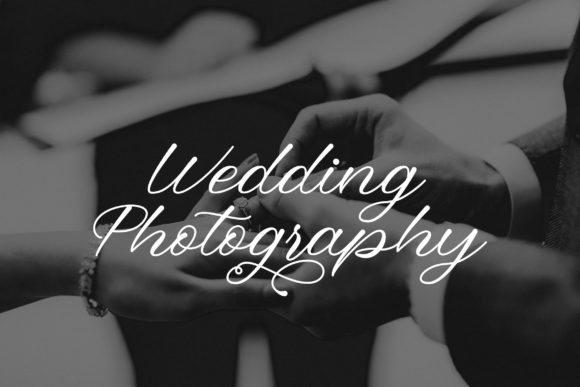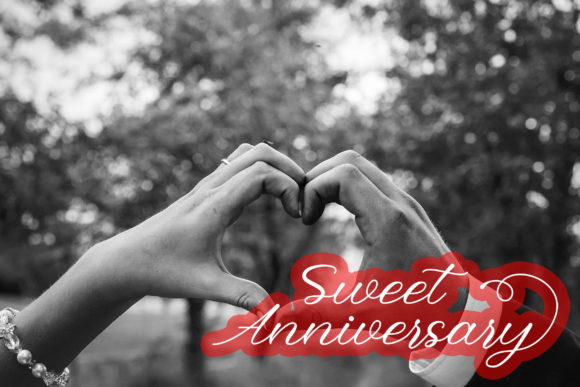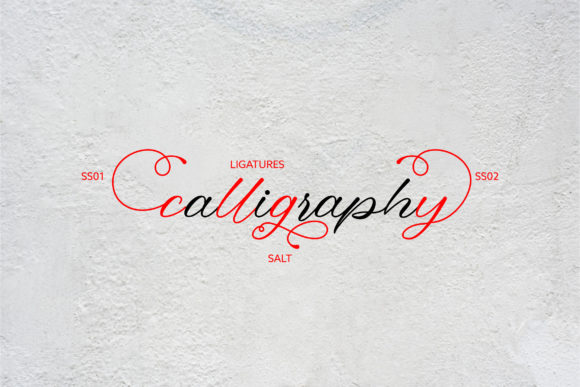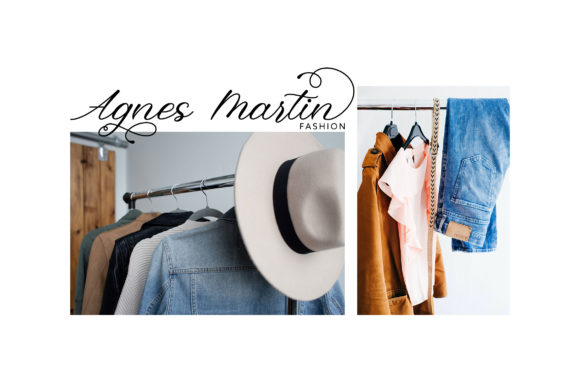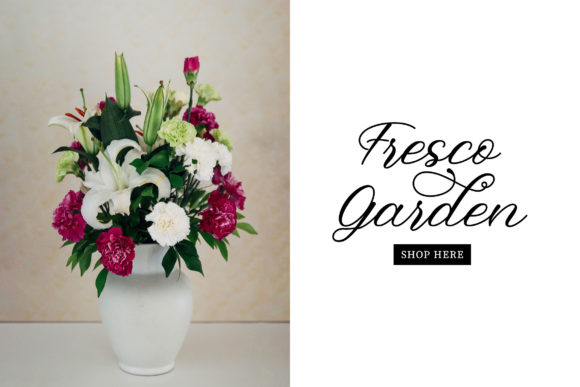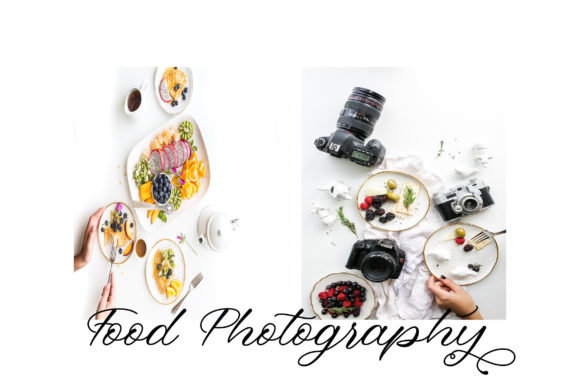
Discover the Elegance of Betty Chamilla Font: Elevate Your Designs with Swashbuckling Style
Are you on the hunt for a font that exudes elegance, sophistication, and a dash of creativity? Look no further than the Betty Chamilla Font, a stunning script font designed to make your projects stand out from the crowd. With its beautiful beginning and ending swashes, this font is sure to capture the hearts of designers and crafters alike.
The Beauty of Betty Chamilla Font
Betty Chamilla Font is a masterpiece of typographic design, boasting a natural look that is both effortless and refined. Its incredibly versatile style makes it an ideal choice for a wide range of projects, from wedding invitations and branding materials to social media graphics and more. Whether you’re looking to create a romantic ambiance or add a touch of whimsy to your designs, Betty Chamilla Font is the perfect companion.
Key Features of Betty Chamilla Font
- Beautiful Script Font: Betty Chamilla Font is a gorgeous script font that features flowing lines and elegant curves, perfect for creating eye-catching designs.
- Beginning and Ending Swashes: Add a touch of drama and flair to your designs with the font’s beautiful beginning and ending swashes.
- Natural Look: The font’s natural look makes it easy to pair with a variety of design styles, from rustic to modern.
- PUA Encoded: With PUA encoding, you can access all of the glyphs and swashes with ease, giving you complete creative control.
- Incredibly Versatile: Use Betty Chamilla Font to create spectacular designs for a wide range of projects, from digital to print.
Why Designers and Crafters Love Betty Chamilla Font
So, what makes Betty Chamilla Font a favorite among designers and crafters? For starters, its unique blend of elegance and playfulness makes it perfect for creating designs that are both sophisticated and eye-catching. Additionally, the font’s versatility means that it can be used for a wide range of projects, from delicate wedding invitations to bold social media graphics.
Tips for Using Betty Chamilla Font
To get the most out of Betty Chamilla Font, here are a few tips to keep in mind:
- Experiment with Swashes: Don’t be afraid to get creative with the font’s swashes – they’re perfect for adding a touch of drama and flair to your designs.
- Pair with Bold Fonts: Pair Betty Chamilla Font with bold, sans-serif fonts for a striking contrast that adds visual interest to your designs.
- Use for Headlines and Titles: The font’s elegant script style makes it perfect for headlines and titles – use it to add a touch of sophistication to your designs.
In conclusion, Betty Chamilla Font is a stunning script font that is sure to elevate your designs to the next level. With its beautiful beginning and ending swashes, natural look, and PUA encoding, this font is perfect for designers and crafters looking to add a touch of elegance and sophistication to their projects. So why wait? Fall in love with Betty Chamilla Font today and start creating spectacular designs that leave a lasting impression!
- Betty Chamilla Font is a beautiful script font with beginning and ending swashes.
- The font has a natural look and is incredibly versatile.
- PUA encoding makes it easy to access all glyphs and swashes.
- Perfect for a wide range of projects, from digital to print.